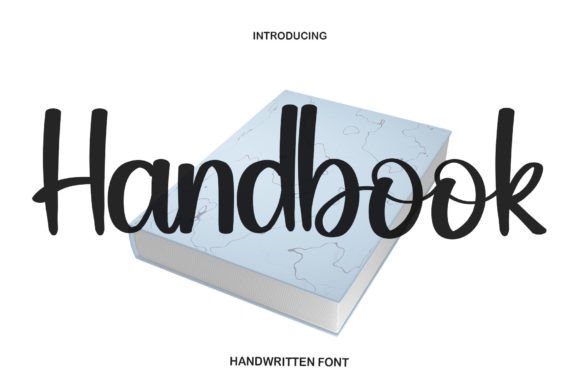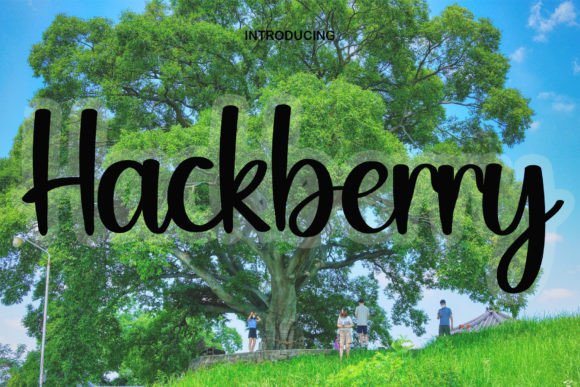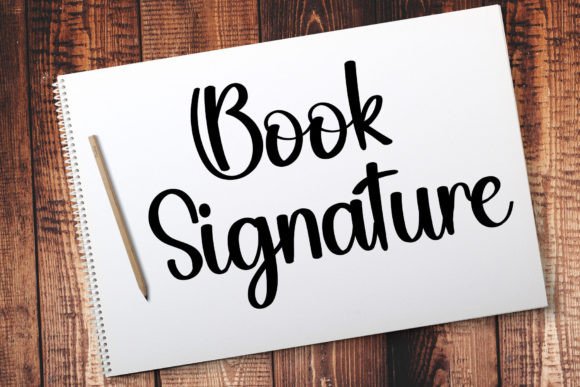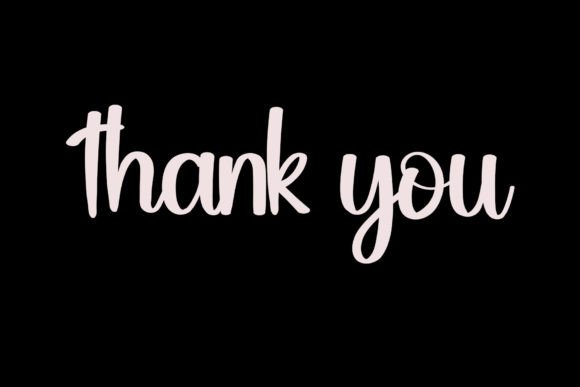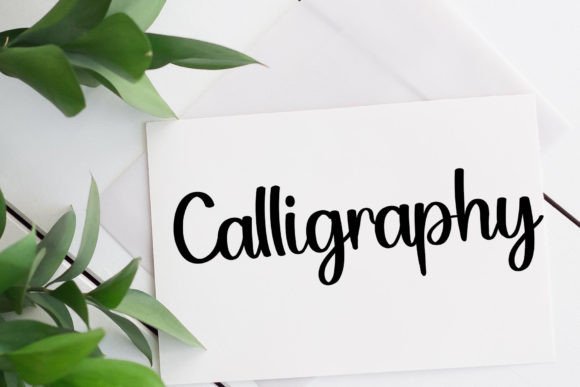
About Handbook Font
Handbook Font is a trendy handwritten typeface that perfectly merges modern style with the timeless elegance of classic calligraphy. Its clean and flawless form makes it adaptable for various design projects. Whether you’re creating logos, invitations, packaging, or branding materials, Handbook adds a refined touch of sophistication to any work.
Modern Design with Classic Inspiration
Handbook combines flowing, graceful strokes with balanced letterforms inspired by traditional calligraphy. This fusion creates a and stylish font that fits contemporary design needs while classic beauty.
Versatile Uses for Handbook Font
This font is ideal for a wide range of applications, including:
Logos and brand identities
Wedding invitations and event stationery
Product packaging and labels
Social media graphics and promotions
Business cards and personalized projects
Handbook’s versatility allows it to suit many types of products and creative concepts.
Why Choose Handbook Font?
Designers choose Handbook for its:
Modern yet classic handwritten style
Elegant and readable letterforms
Flexibility across print and digital media
These features make Handbook a practical and stylish font for various projects.
Add Elegance and Flexibility to Your Projects
Typography plays a vital role in setting the tone for your design. Handbook adds both elegance and flexibility, ensuring your work with audiences through a sophisticated handwritten look. Whether for formal branding or casual creative projects, this font enhances your visual storytelling.
In summary, Handbook Font is a trendy and elegant handwritten script perfect for designers seeking a versatile, stylish font. Add Handbook to your font collection to create refined and memorable designs.